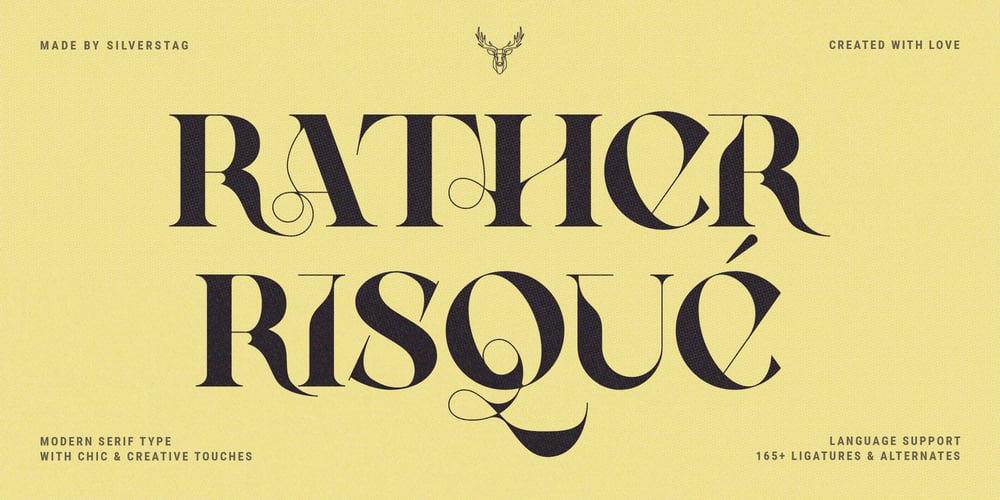
Rather Risque Font Family was designed by SilverStag and published by SilverStag. Rather Risque contains 1 styles and family package options. RATHER RISQUÉ is a brand new & creative contrast serif font, my take on a classical serif typeface, with over 165 unique ligatures and alternates for all uppercase and lowercase letters. This serif font was inspired by fashion editorial fonts, I wanted it to be bold but with a contrast thin touches, modern ligatures and unique features.RATHER RISQUÉ serif font comes with over 165 ligatures and alternates, full language support and it will be perfect for any kind of design work. Whether you’re making a poster, logo design, full branding or a website, you can use it and get an amazingly creative result. I invite you to check out the preview images, and I hope you will be immersed in my vision for this creative typeface that, I am sure, will work for all kinds of interesting projects you might be working on this year.It also includes full language support, punctuation, numerals and detailed instructions how to use alternate letters most of the apps on your computer, as well as in Canva.If you end up publishing your designs on Instagram, tag me – @silverstagco and I will make sure to showcase your design and work to my audience as well!RATHER RISQUE | A Ligature Serif Font Includes: RATHER RISQUE.otf – Classical Serif Typeface With Modern Alternates & Ligatures 165+ Creative Alternates & Ligatures Numerals & Punctuation Language Support Web Font Kit is included as well Detailed instructions on how to use alternates in most of the apps on your computer and in Canva Happy creating everyone!